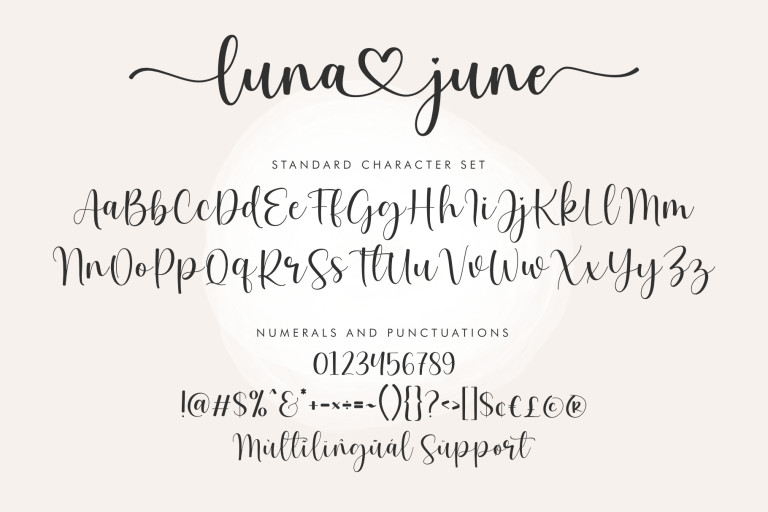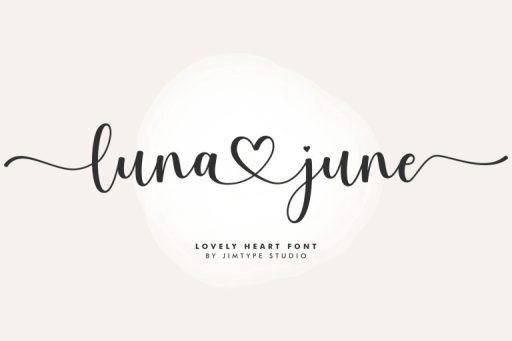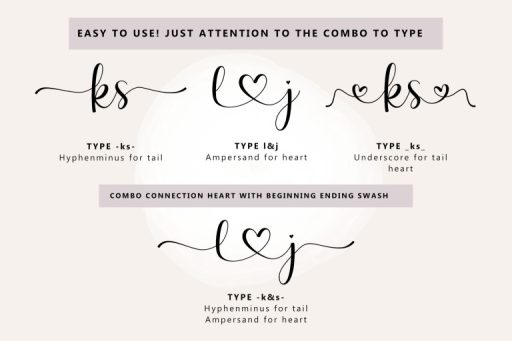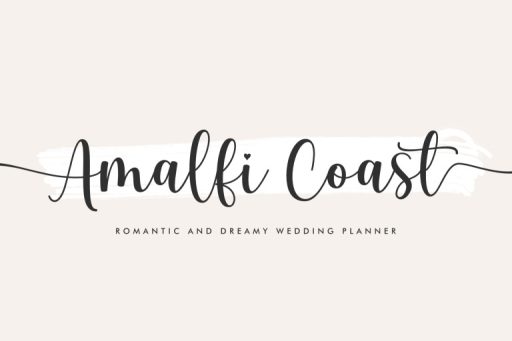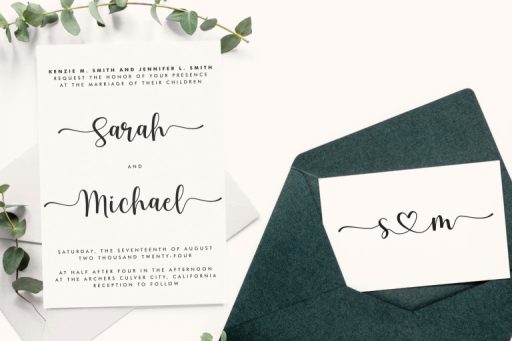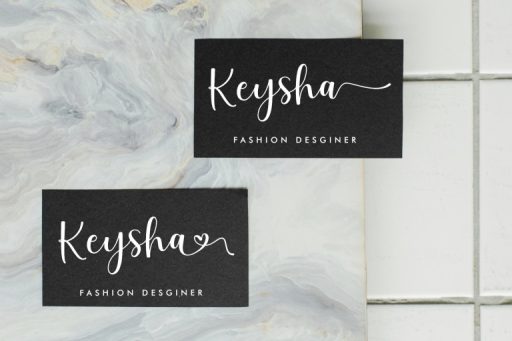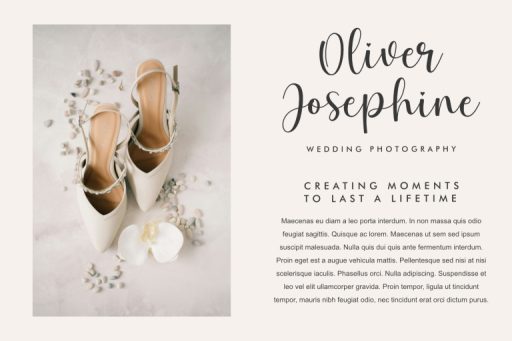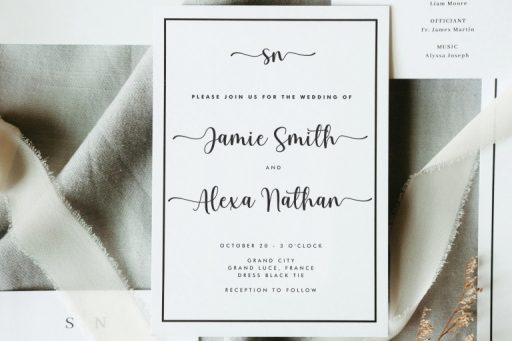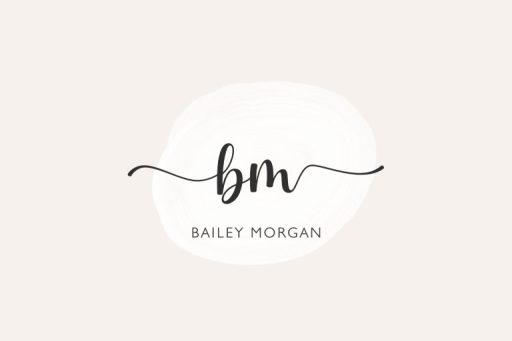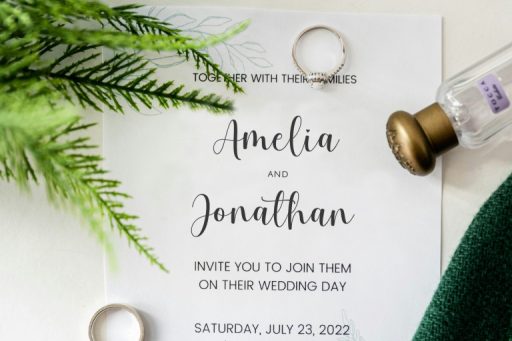
Luna June - Wedding Branding Font from Jimtype Studio
Luna June
Luna June - Heart
Luna June - Tail
Luna June - Tail Heart
Luna June - Uppercase Tail
Luna June – Wedding Branding Font from Jimtype Studio
Luna June is a sweet, lovely, and modern calligraphy font with a connected heart. This beautiful script is particularly well suited for wedding invitations, logos, branding, watermarks, save-the-date cards, and feminine branding.
Luna June includes a full set of Uppercase and Lowercase Basic Characters, Numbers, and Punctuation. Also, it contains ligatures and character hearts to perfectly re-create sweet calligraphy.
Use the following combos for :
lowercase heart connect
type: a& (lowercase letter ampersand)
For example: amelia&amanda
lowercase beginning and ending swash
type: -a or a- (hyphenminus lowercase letter or lowercase letter hyphenminus)
For example: -amelia- -amanda-
lowercase beginning and ending swash with heart
type: _a or a_ (underscore lowercase letter or lowercase letter underscore)
For example: _amelia_ _amanda_
You can also combine swash beginning and ending with heart connect, with a combo
For example: -amel&lia-
(hyphenminus lowercase letter ampersand lowercase letter)
• Swashes heart connections
• Beginning and ending swashes characters